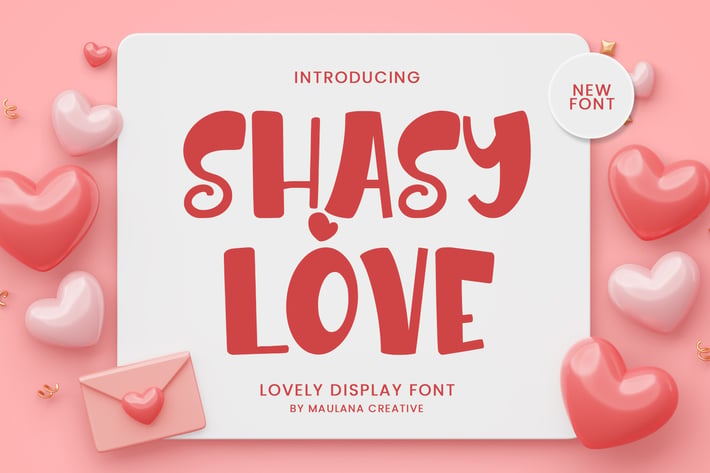
Shasy Love Lovely Display Font
Shasy Love lovely display font. Bold stroke, fun character with a bit of ligatures and alternates. To give you an extra creative work. Shasy Love font support multilingual more than 100+ language. This font is good for logo design, Social media, Movie Titles, Books Titles, a short text even a long text letter and good for your secondary text font with script or serif. Make a stunning work with Shasy Love graffiti display font.